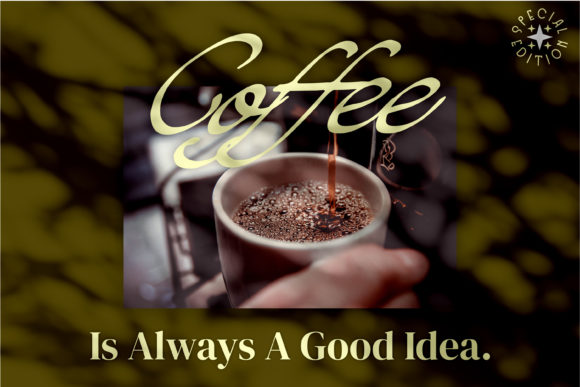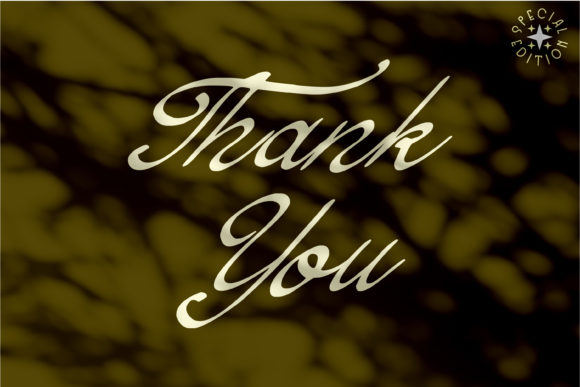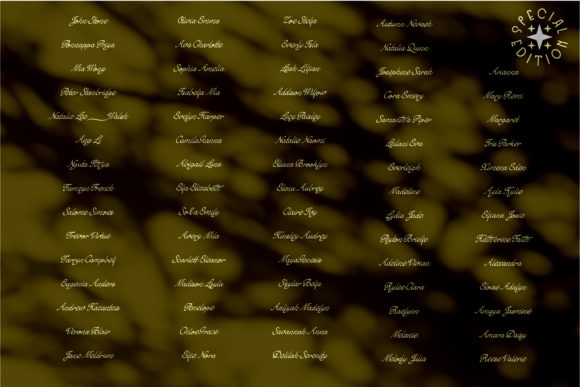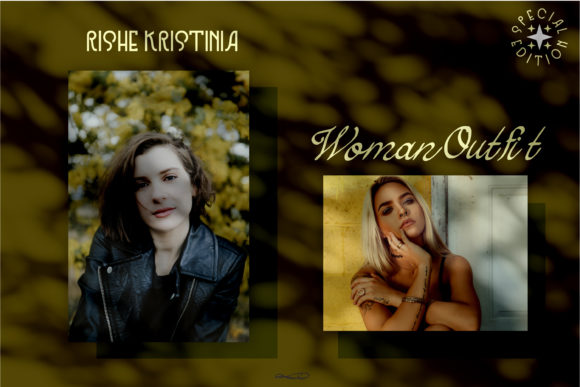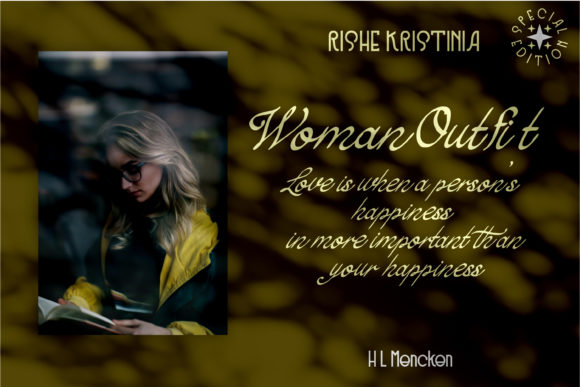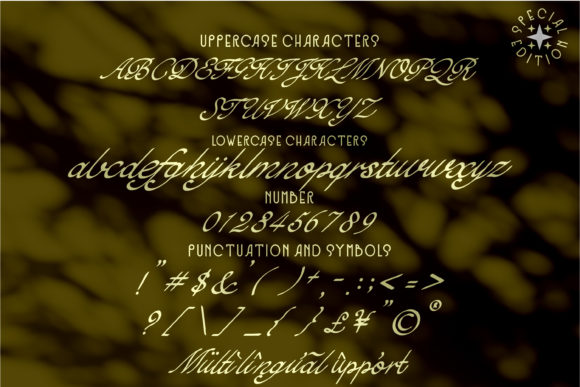
Unleash the Beauty of Haer Script Font in Your Designs
Are you a designer or crafter looking for a font that can elevate your creative projects to the next level? Look no further than Haer Script Font, a stunning script font that is sure to captivate your audience. With its intricate details and elegant appearance, Haer Script Font is a wonderful asset to any font library.
The Characteristics of Haer Script Font
Haer Script Font is a ravishing script font that boasts a range of characteristics that make it stand out from the crowd. Here are a few of its key features:
• Neatly crafted and highly detailed: Haer Script Font is meticulously designed to ensure that every letter and stroke is perfect. The attention to detail is evident in every aspect of the font, making it a joy to use.
• Elegant and refined: Haer Script Font exudes elegance and sophistication, making it perfect for designs that require a touch of luxury.
• Versatile: Haer Script Font can be used in a wide range of design applications, from branding and advertising to packaging and digital media.
The Benefits of Using Haer Script Font
So, why should you choose Haer Script Font for your design projects? Here are just a few benefits of using this amazing font:
• Adds a touch of sophistication: Haer Script Font can instantly elevate your designs and add a touch of sophistication that will leave a lasting impression on your audience.
• Perfect for branding and advertising: With its elegant appearance and highly legible letters, Haer Script Font is perfect for use in branding and advertising campaigns.
• Great for digital media: Haer Script Font is optimized for use in digital media, making it perfect for use in website designs, social media graphics, and more.
How to Use Haer Script Font in Your Designs
Using Haer Script Font in your designs is easy. Here are a few tips to get you started:
• Pair it with a sans-serif font: For a classic look, pair Haer Script Font with a sans-serif font like Arial or Helvetica.
• Use it for headings and titles: Haer Script Font is perfect for use in headings and titles, where its elegant appearance can really shine.
• Experiment with colors and textures: Don’t be afraid to experiment with different colors and textures to really make Haer Script Font pop.
Why Designers and Crafters Love Haer Script Font
Haer Script Font has quickly become a favorite among designers and crafters, and for good reason. Here are a few reasons why:
• Unique and distinctive: Haer Script Font is a unique and distinctive font that can help your designs stand out from the crowd.
• Easy to read: Despite its intricate details, Haer Script Font is highly legible and easy to read, making it perfect for use in a wide range of design applications.
• High-quality design: Haer Script Font is a high-quality font that is meticulously designed to ensure that every letter and stroke is perfect.
In conclusion, Haer Script Font is a stunning script font that is sure to elevate your designs to the next level. With its intricate details, elegant appearance, and highly legible letters, Haer Script Font is a wonderful asset to any font library. Whether you’re a designer or crafter, Haer Script Font is a must-have font that is sure to inspire your creativity.